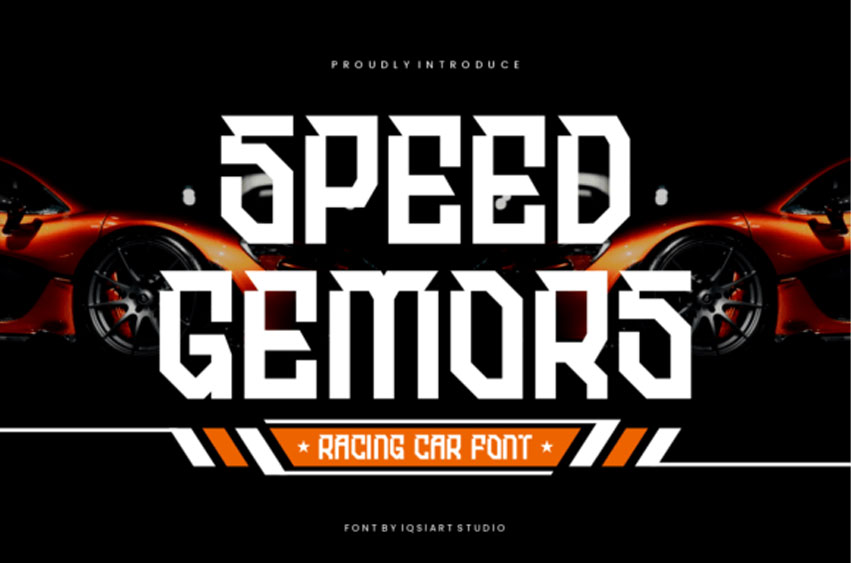
Speed Gemors Font
Speed Gemors Font is a bold and high-octane display font crafted for racing, automotive, and tech-related themes. With its angular, blocky letterforms and dynamic energy, this typeface embodies the speed and thrill of the race track. It’s ideal for racing logos, esports branding, car posters, and high-impact video thumbnails.
Whether you’re promoting a motorsport event, designing an aggressive t-shirt graphic, or branding a car modification business, Speed Gemors delivers the intensity and edge you need. The font’s strong geometric design and energetic feel make it perfect for digital and print use alike.